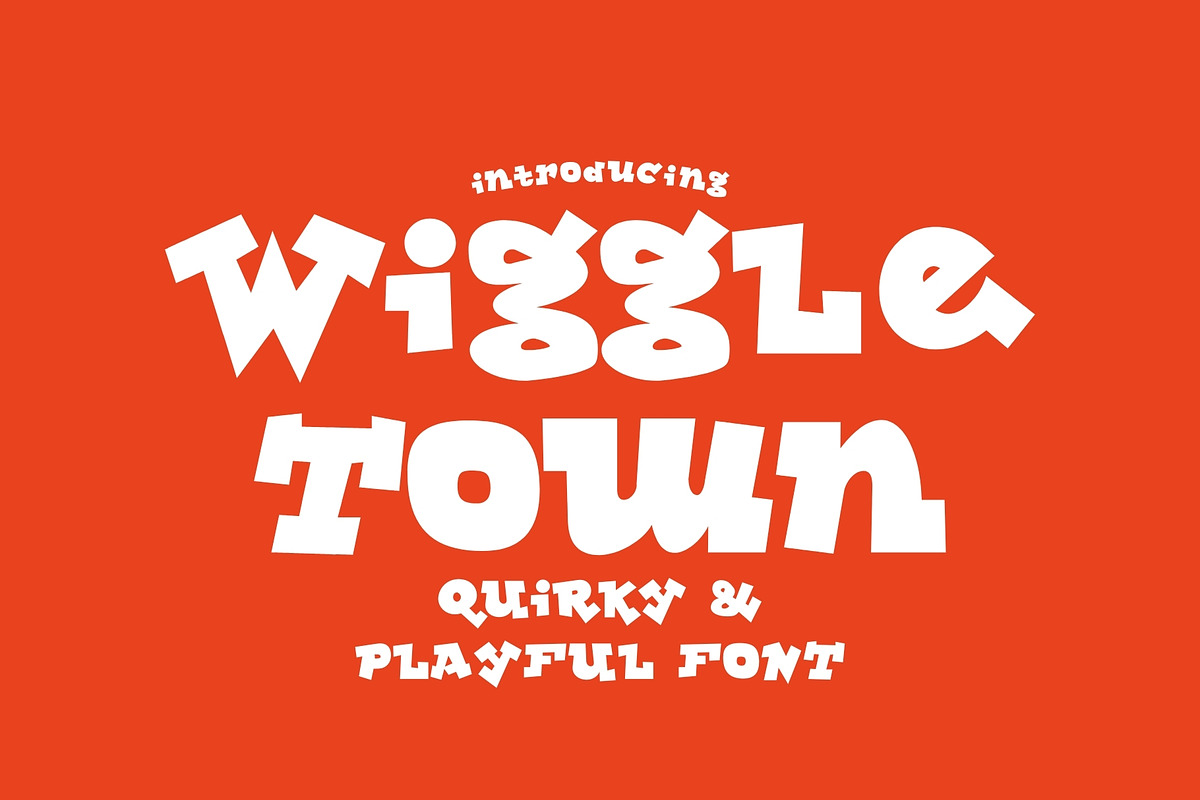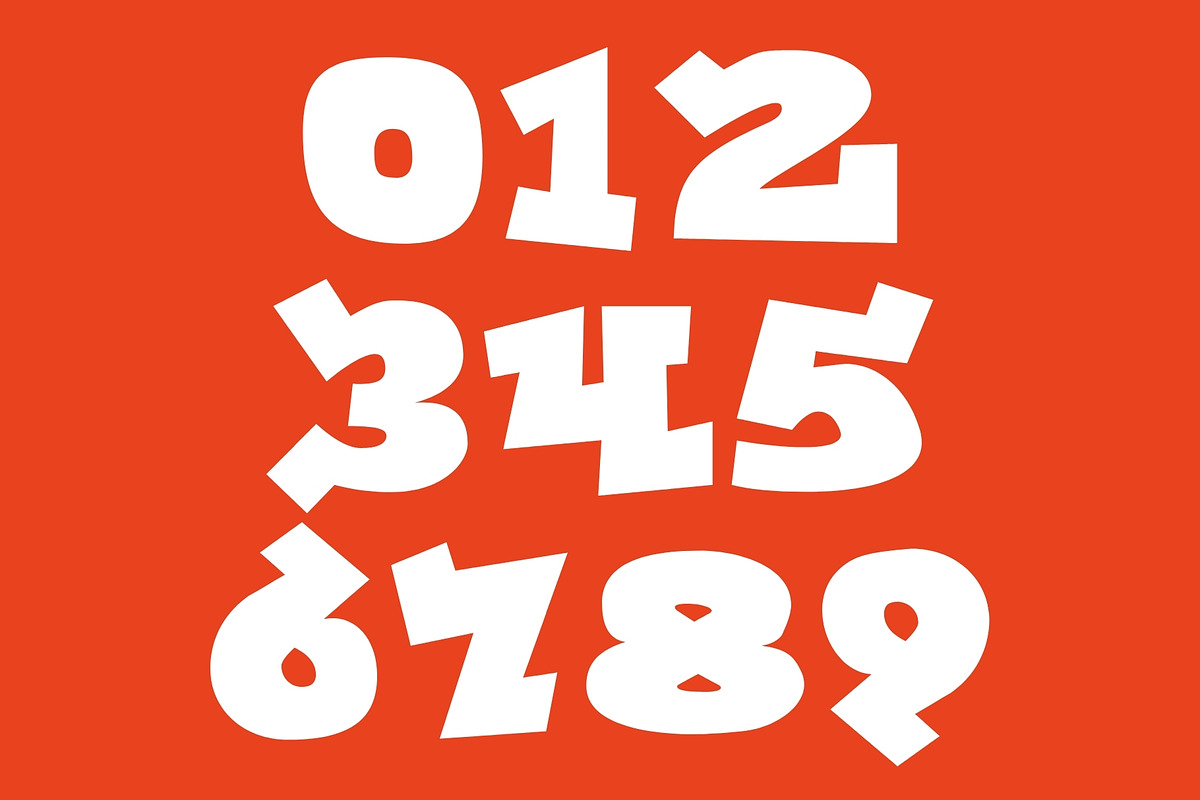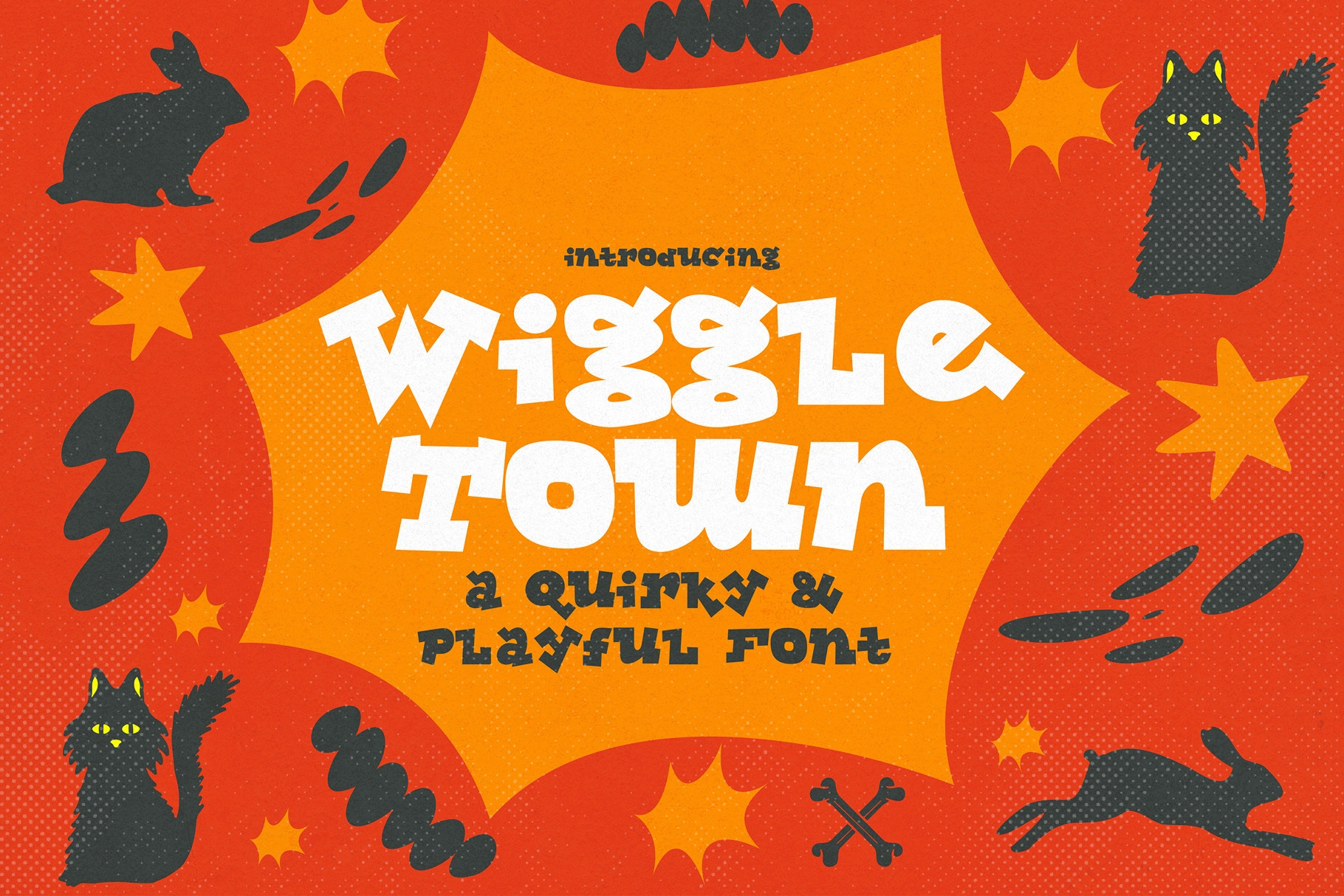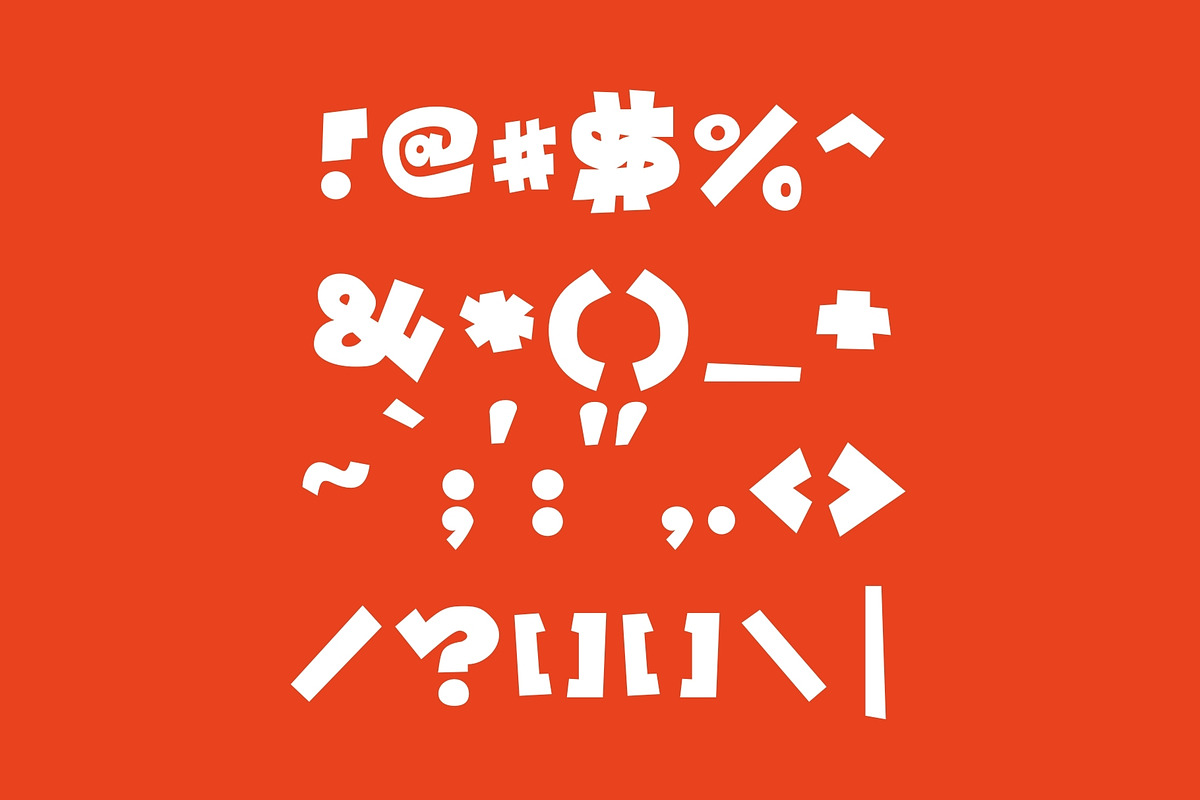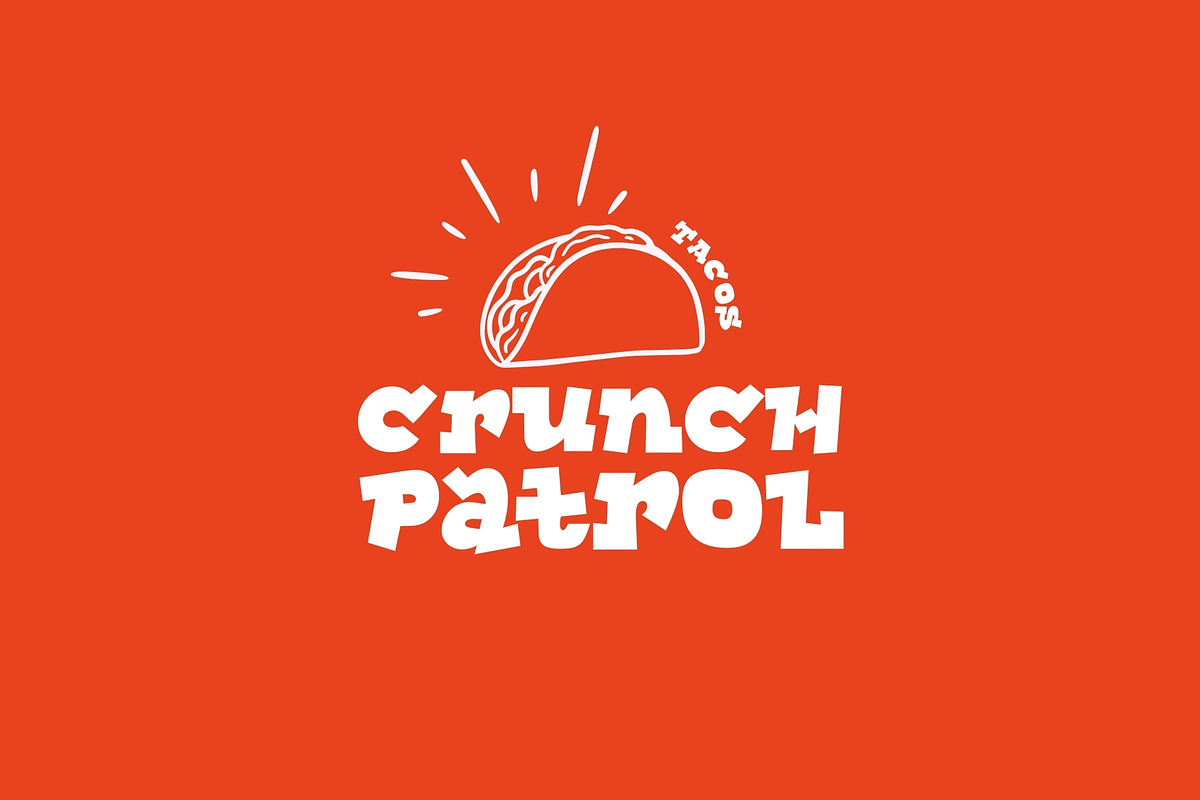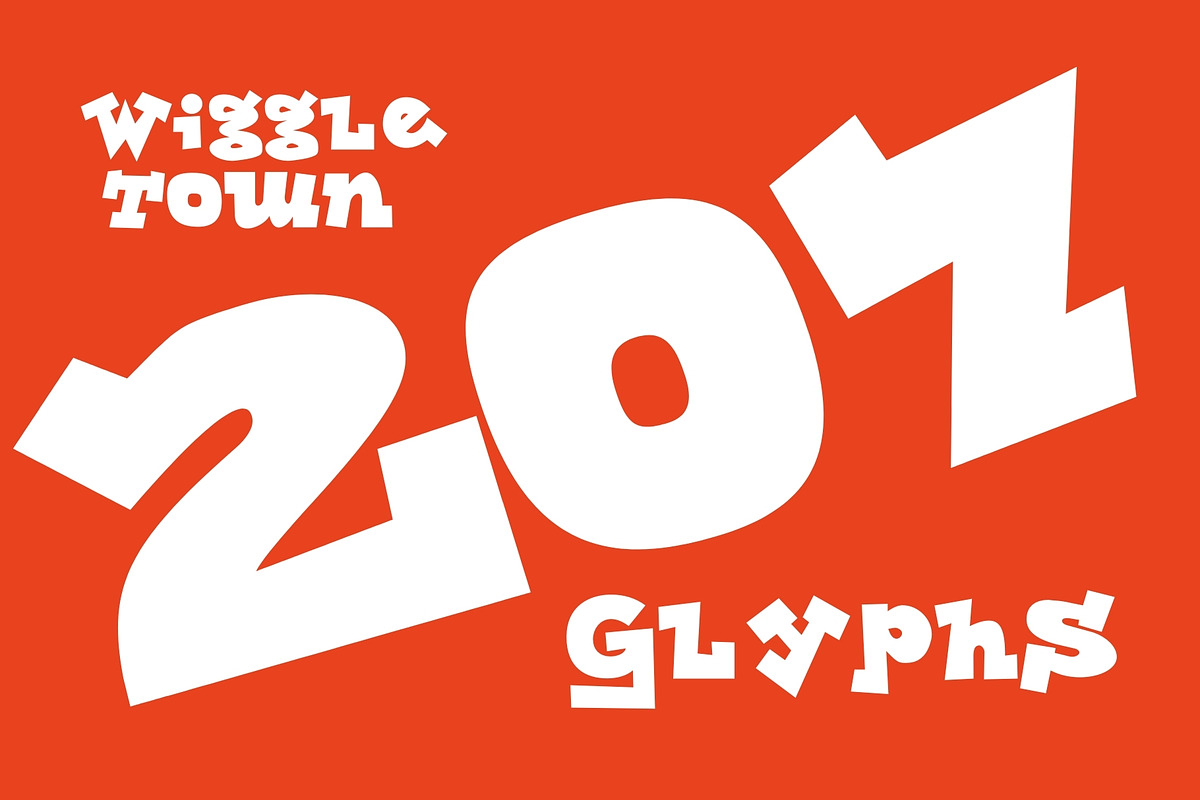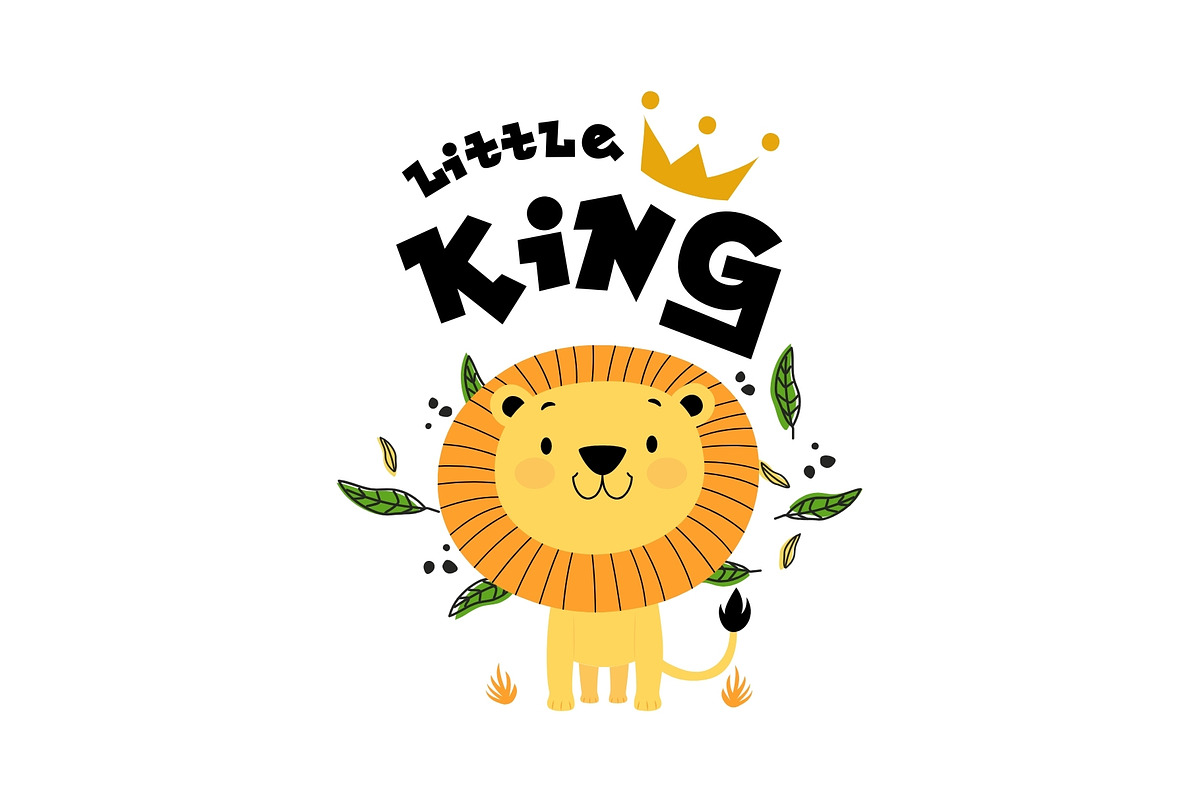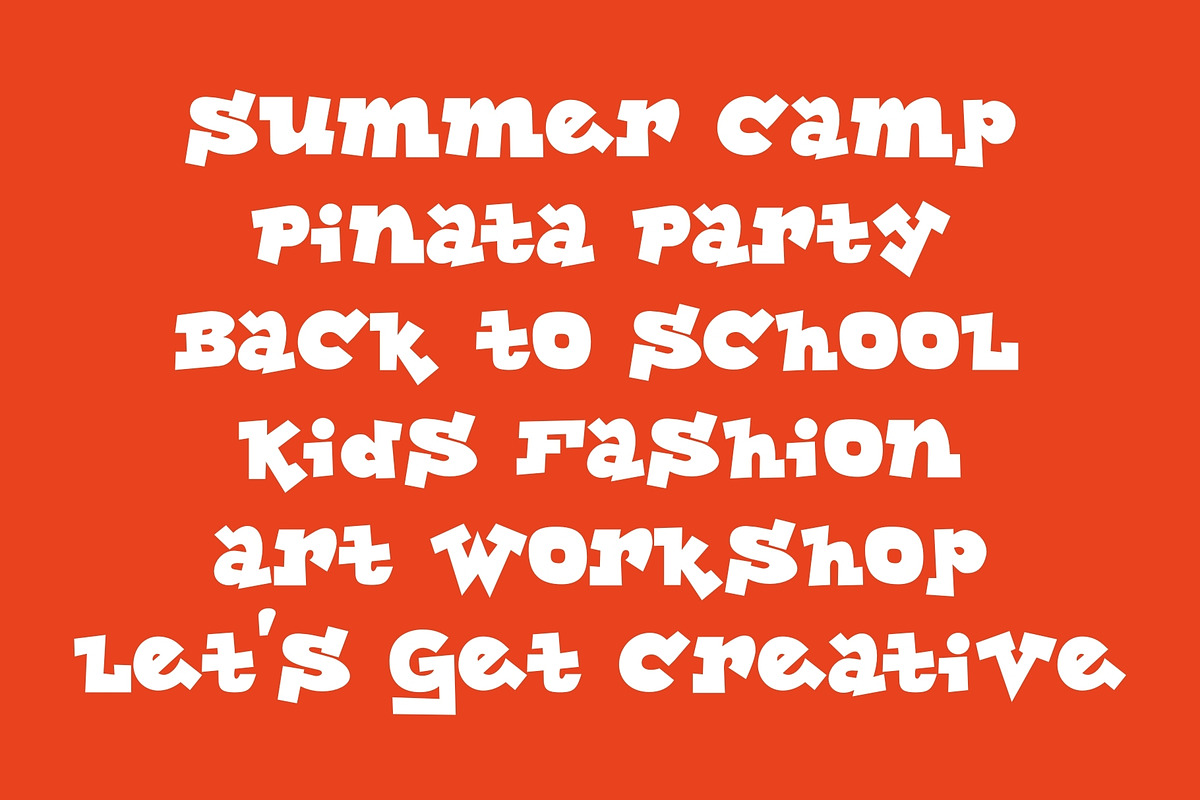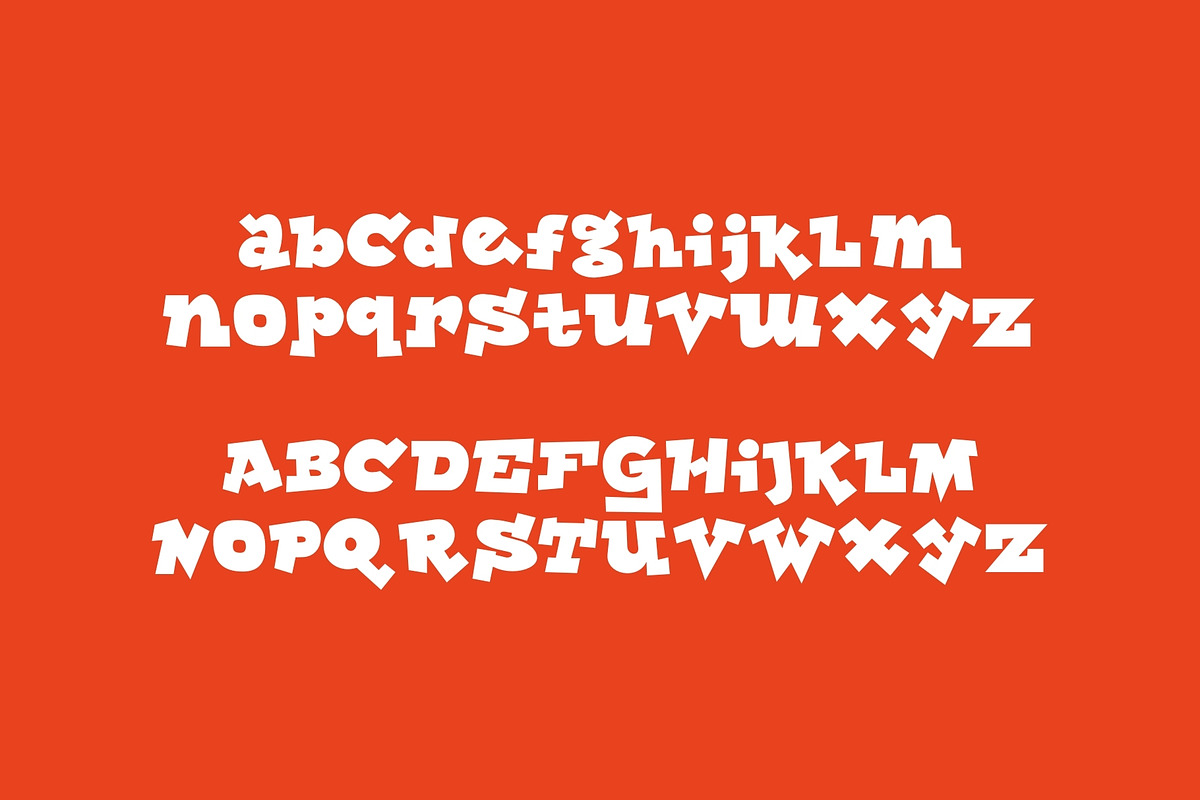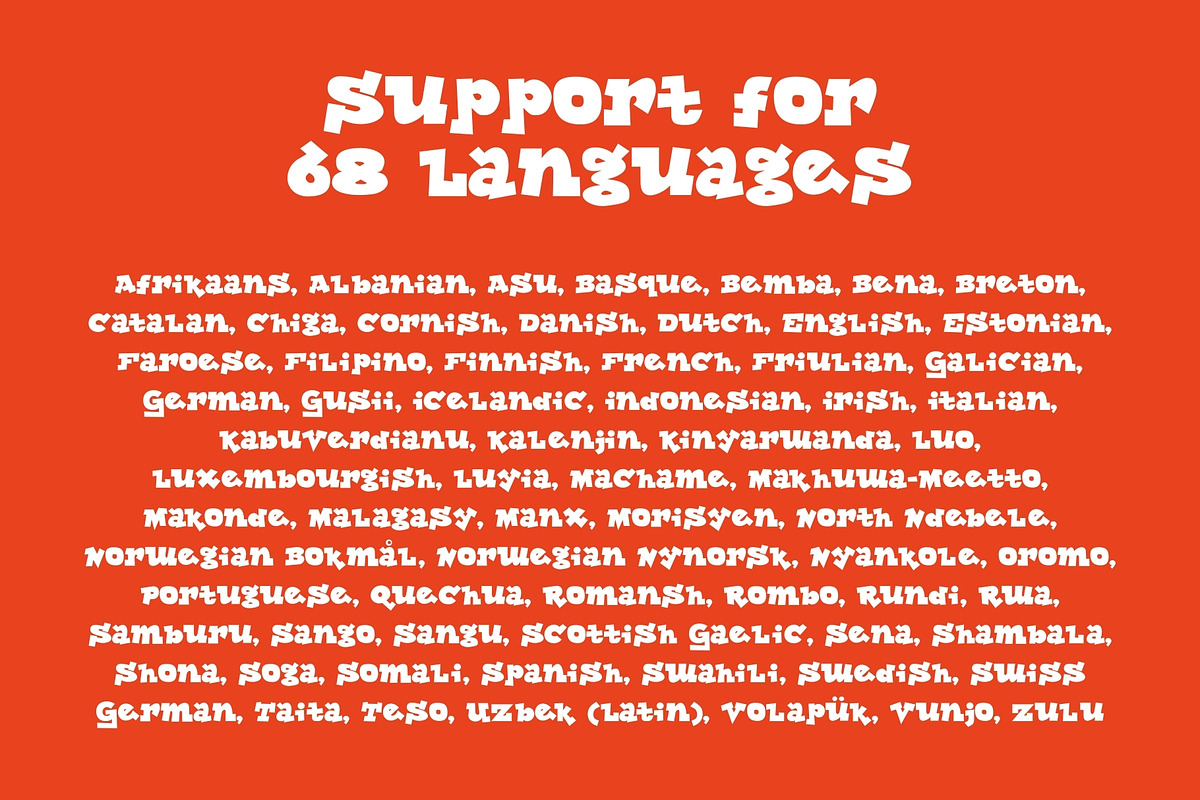
Wiggle Town - Fun & Quirky Typeface
Wiggle Town is a fun and quirky typeface bursting with personality. Designed to dance across the page, this cheerful font features 207 unique glyphs and supports 68 languages, making it as versatile as it is vibrant.
Whether you're creating playful branding, colorful posters, joyful invitations, or anything that needs a splash of charm, Wiggle Town brings the fun with every keystroke. Its hand-crafted curves and wiggly spirit make it the perfect choice for lighthearted, exciting, and feel-good designs.
✨ Features:
- 207 delightful glyphs
- Supports 68 languages
- Full of wiggly charm and quirky energy
- Perfect for branding, packaging, party invites, posters & more!
Bring your ideas to life with a font that smiles back. Say hello to Wiggle Town, the happiest typeface in town!